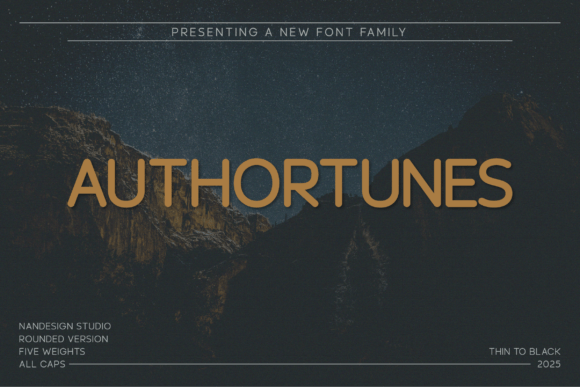
Authortunes Rounded: A Modern Classic
Authortunes Rounded is a modern all-caps sans serif font family designed to bring clarity, warmth, and bold personality to your creative projects. With its soft-rounded edges and sleek, geometric construction, this font is both highly legible and aesthetically balanced across five versatile weights: Thin, Light, Regular, Bold, and Black.
Whether you’re building a logo, packaging design, social media visuals, or high-impact headlines, Authortunes Rounded adapts beautifully while adding a polished, confident touch. This font family was created to help designers, crafters, and brand creators achieve a clean yet friendly visual identity.
- ✨ Versatility: With five weights to choose from, Authortunes Rounded can be used for a wide range of projects, from delicate designs to bold statements.
- ✅ Legibility: The soft-rounded edges and geometric construction make this font highly legible, even at small sizes.
- 💡 OpenType Features: Authortunes Rounded supports a range of OpenType features, including glyphs and stylistic alternates, giving you creative freedom to experiment with different styles.
⚠️ While Authortunes Rounded is an excellent font, it’s not without its limitations. Some users may find the font’s rounded edges can make it less suitable for very small text sizes or body copy. Additionally, the font’s all-caps design may not be ideal for projects requiring extensive paragraphs of text.
🤔 One thing to note is that Authortunes Rounded may not be the best choice for projects requiring a highly formal or traditional tone. However, for most creative projects, this font’s friendly and approachable personality shines through.
The story behind Authortunes Rounded begins with a simple goal: to create a font that combines modernity with warmth. The designer, inspired by the clean lines and geometric shapes of modern architecture, sought to bring a sense of friendliness and approachability to the world of sans serif fonts.
Through countless hours of refinement and iteration, Authortunes Rounded was born – a font that embodies the perfect balance of clarity, warmth, and bold personality.
Q: What is the best use case for Authortunes Rounded?
A: Authortunes Rounded is ideal for creative projects requiring a modern, friendly, and approachable tone, such as logos, packaging design, social media visuals, and high-impact headlines.
Q: Can I use Authortunes Rounded for body copy?
A: While Authortunes Rounded is highly legible, its all-caps design may not be ideal for extensive paragraphs of text. However, it can be used for short blocks of text or captions.
Q: Is Authortunes Rounded suitable for formal projects?
A: Authortunes Rounded’s friendly and approachable personality may not be the best fit for very formal projects. However, its modern and sleek design makes it suitable for most creative projects.